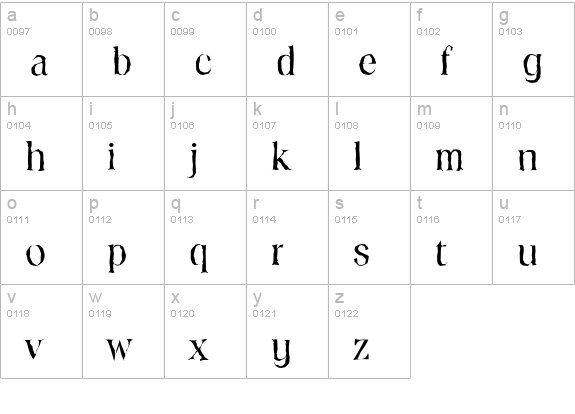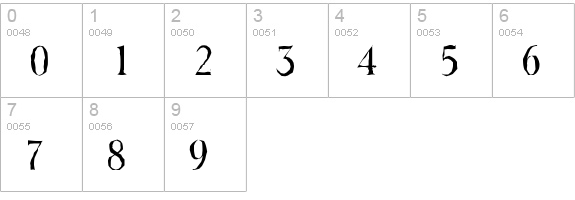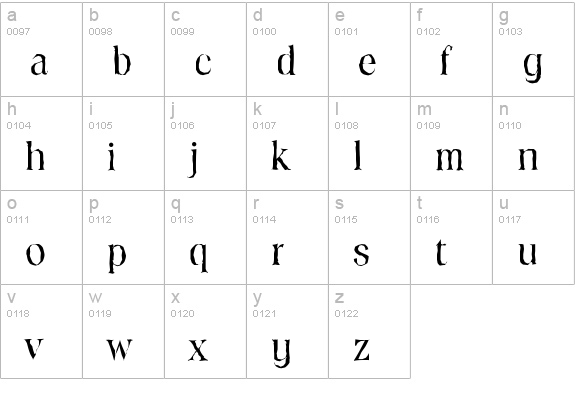
ToledoAntique-Regular Font Details
ToledoAntique-Regular is the standard, neutral variant in the ToledoAntique typeface family \xE2\x80\x94 well suited to general body text, paragraphs, and standard typographic work.
ToledoAntique-Regular font exudes a timeless charm and nostalgic appeal, making it a perfect choice for projects that require a touch of vintage elegance. With its intricate details and classic design, this font effortlessly captures the essence of old-world sophistication. The ornate serifs and graceful lines of ToledoAntique-Regular add a sense of refinement to any creative endeavor, whether it be invitations, posters, or branding materials. What makes ToledoAntique-Regular font even more appealing is that it is available for free download at FontsMarket.com. This means that you can easily access this exquisite typeface without any cost, allowing you to enhance your designs with a touch of historic flair. Embrace the beauty of ToledoAntique-Regular and let its timeless aesthetic elevate your projects to new heights.